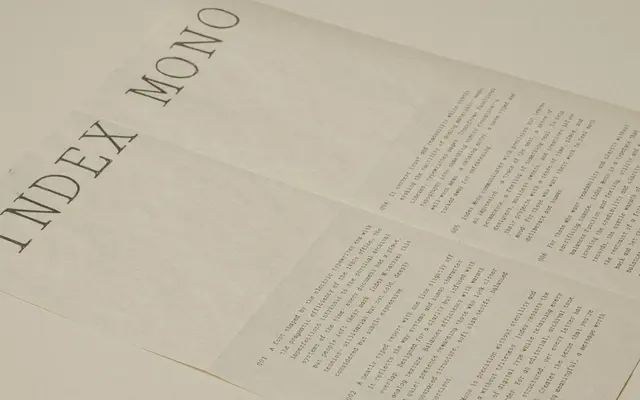
A monospaced typeface from Old City Mailroom, sold alongside a companion Index Sans Mono variant.
Index Mono is a monospaced typeface available at least in a Thin weight, with a companion family called Index Sans Mono sold separately. The page provides very limited detail beyond a type tester and purchase options. Its pairing with a distinct sans mono variant suggests a considered approach to the mono genre, though specifics of the design remain unclear from the available copy.
The typeface is explicitly named and sold as a mono font, with a companion Index Sans Mono, placing it clearly in the monospaced category with a sans-serif structure.